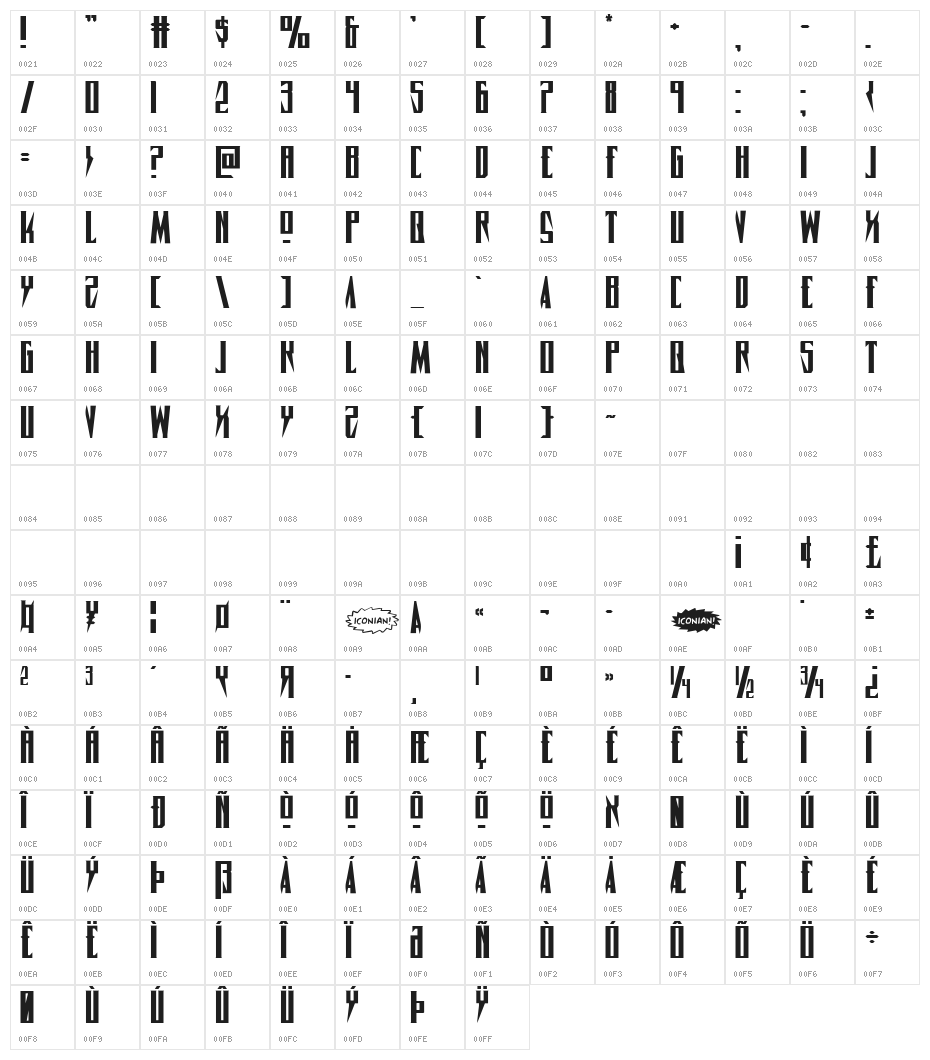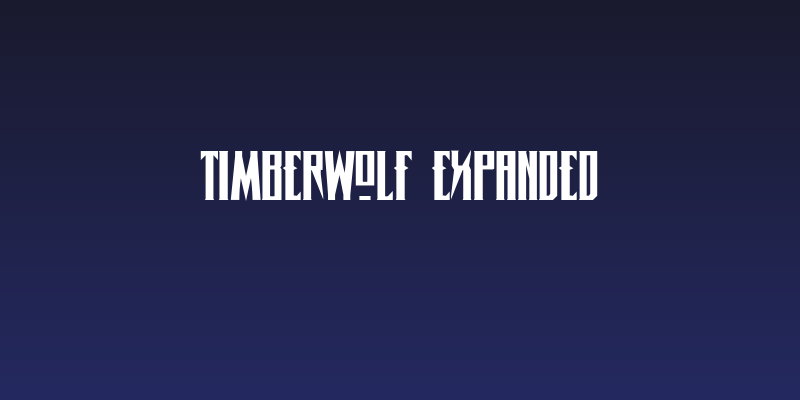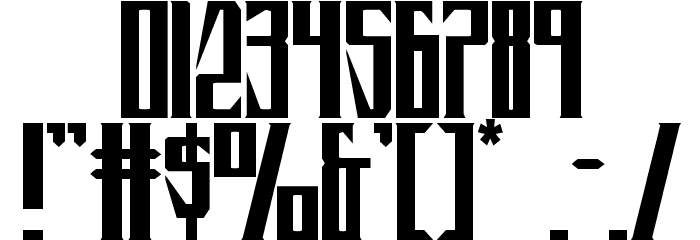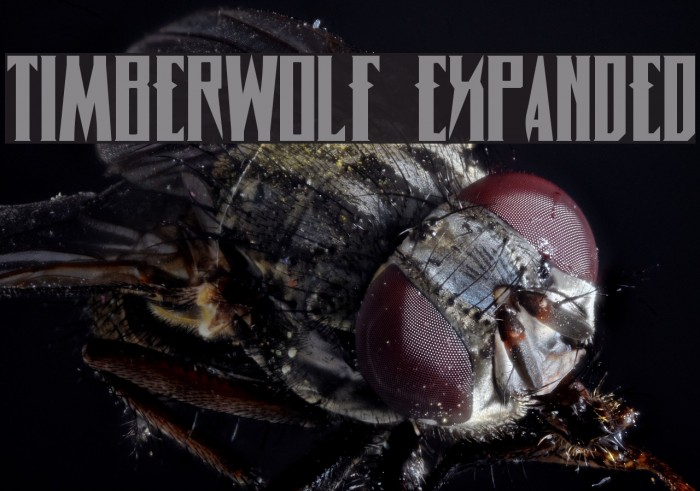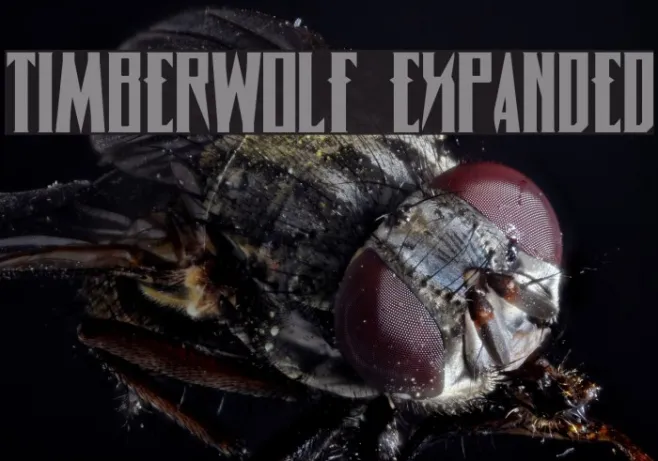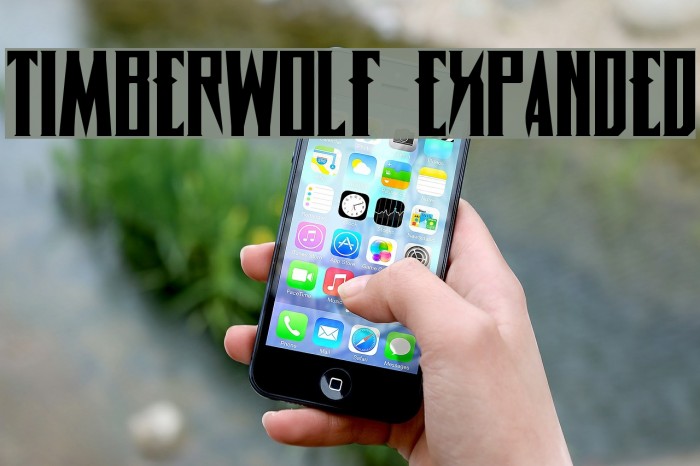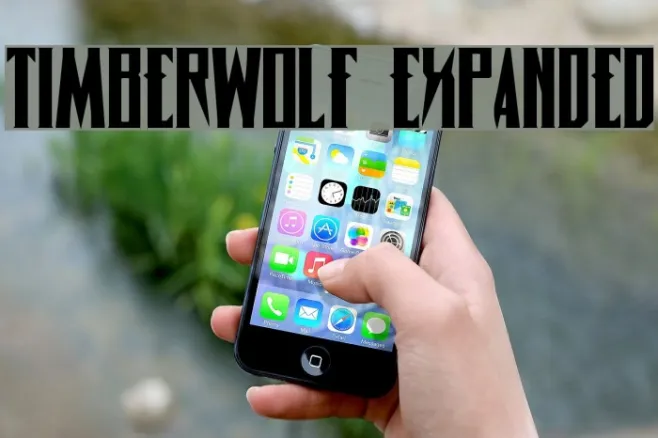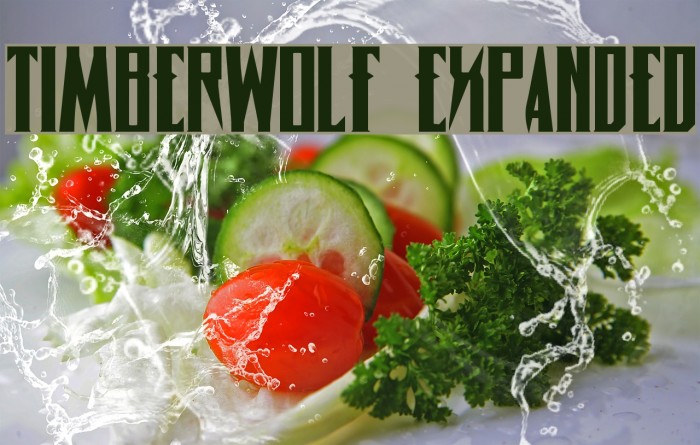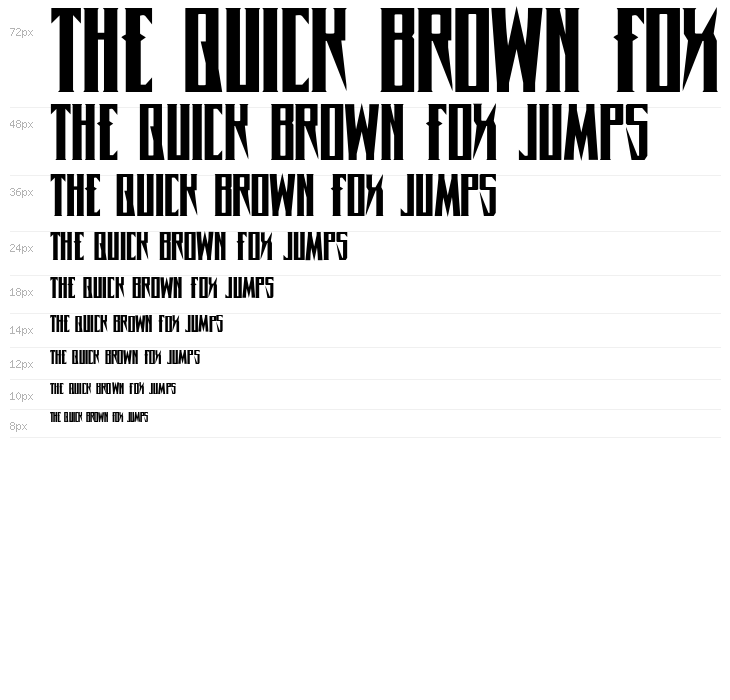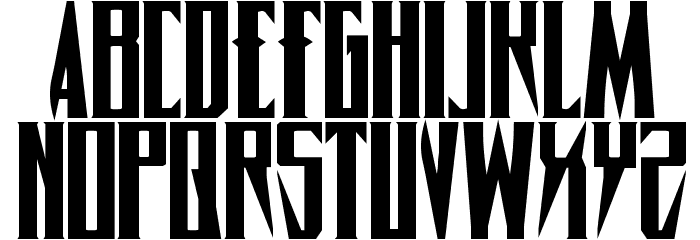
Timberwolf Expanded Font
Timberwolf Expanded Description
This font features a bold and striking design with sharp, angular edges and a geometric style. The characters are tall and narrow, giving an expanded appearance that commands attention. The uppercase letters are particularly distinctive, with unique cuts and angles that create a dynamic and modern look. The numbers and special characters maintain this bold aesthetic, ensuring consistency across all glyphs. This font is designed to stand out, making it ideal for impactful headlines and attention-grabbing designs.